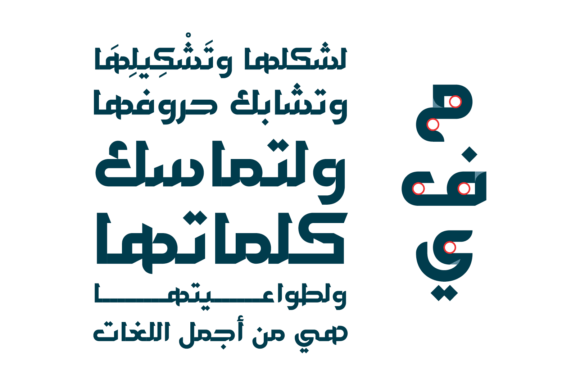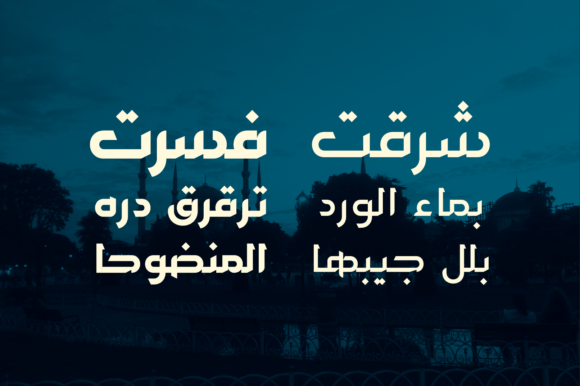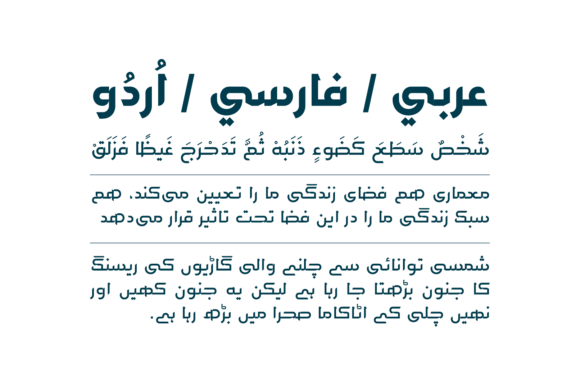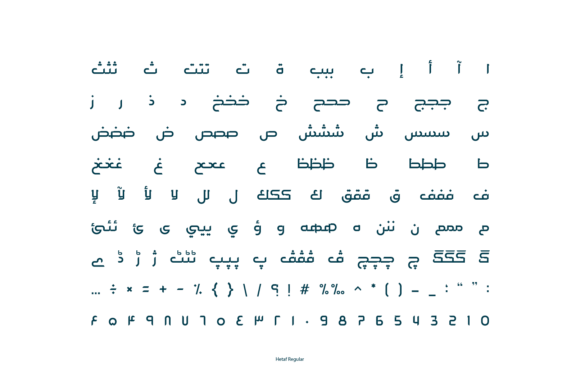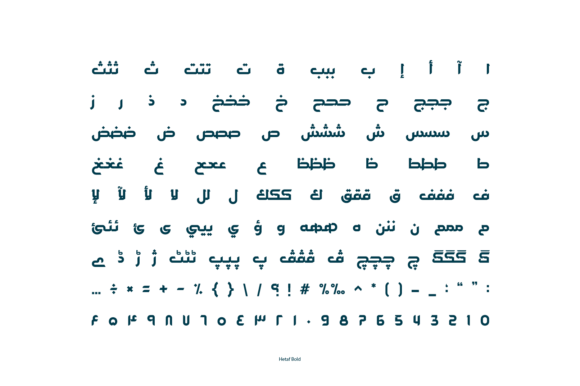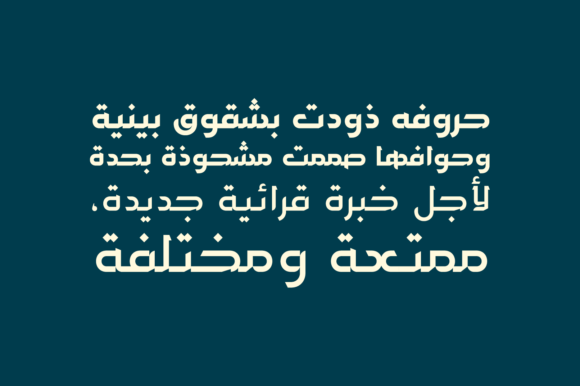
Introduction to Hetaf Font
Hetaf is an Arabic sans serif font that provides a diverting but enjoyable readability experience.
Key Features of Hetaf Font